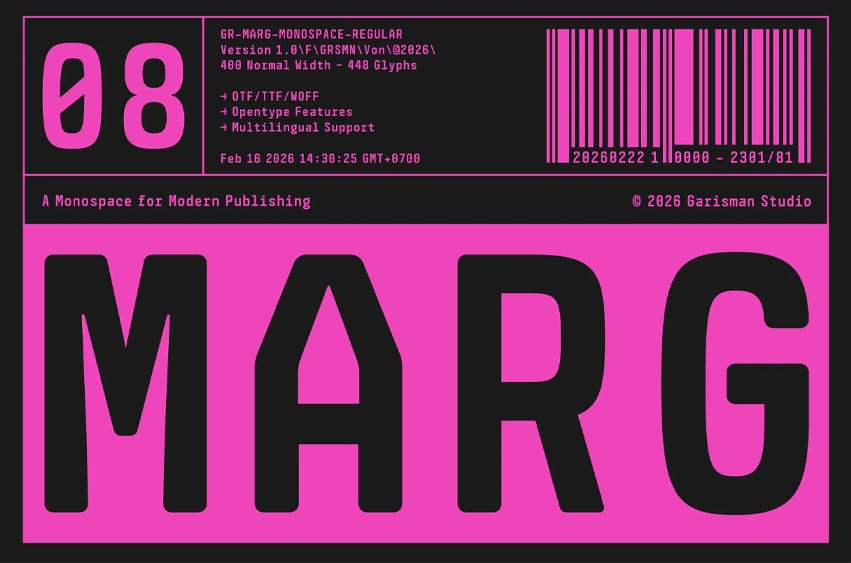
Marg Mono Font Monospace is a modern display monospace typeface designed for precision, alignment, and digital clarity. Built with a structured fixed-width system, every character occupies the same horizontal space—creating perfectly aligned layouts for both technical and creative applications.
Inspired by programming environments, console interfaces, smartwatch displays, boarding tickets, and data-driven dashboards, GR Marg Monospace blends coding aesthetics with contemporary visual design. The letterforms are clean, systematic, and engineered for readability, making them equally effective in code editors and futuristic posters.
OpenType features include fractions, ordinals, stylistic alternates, and a slashed zero for enhanced numeric clarity. Supporting 99 languages and delivered in OTF, TTF, WOFF, and WOFF2 formats, it integrates smoothly into both print and web workflows.